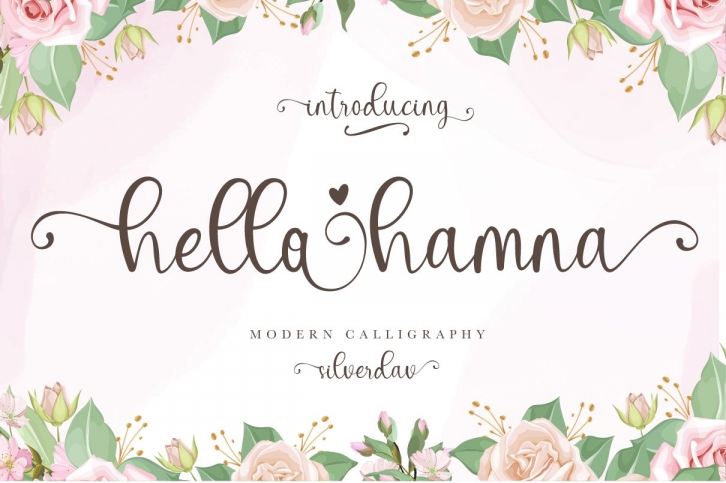
Hello Hamna is a gorgeous font that was realeased on May 5, 2020. The font can be used in many style contexts and design environments. Perfect for invitations, magazines, websites, logos, and more! It was designed by Silverdav and the file size is 13.57 MB. Thanks for checking out this font!